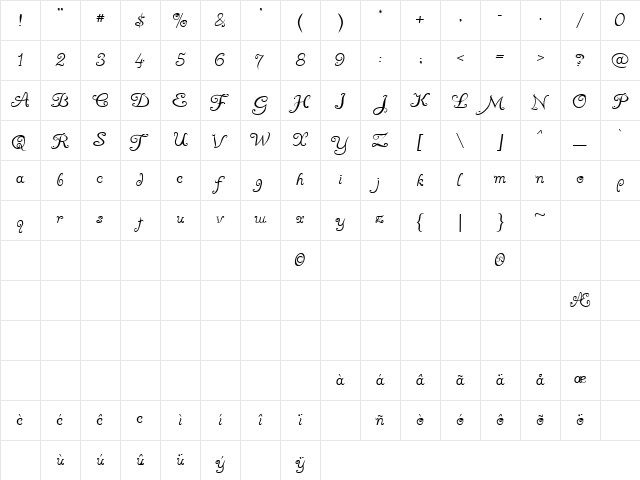
A Yummy Apology Regular Free Font
A Yummy Apology Regular
Design Context for A Yummy Apology
A Yummy Apology is a composed and adaptable typeface that performs quietly and consistently across a wide range of design contexts.
Pro Tip: Use A Yummy Apology in both headline and body roles to test its range before committing to a single application.